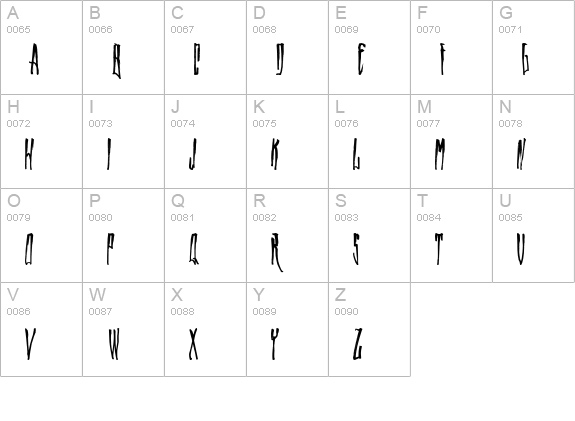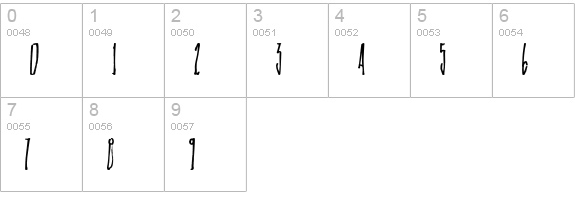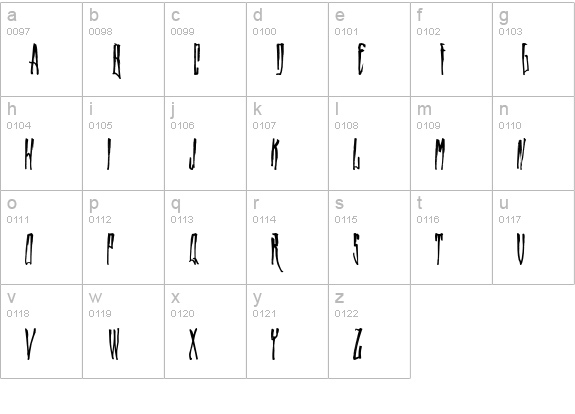
Introducing WALLRIDE font, a sleek and modern typeface that exudes confidence and style. With its bold and dynamic design, WALLRIDE is perfect for making a statement in your projects. This versatile font is ideal for branding, logos, headlines, posters, and more. But the best part? WALLRIDE is completely free to download at FontsMarket.com. That's right, you can elevate your designs with this stunning font without breaking the bank. Don't miss out on the opportunity to add WALLRIDE to your font collection today and take your projects to the next level.